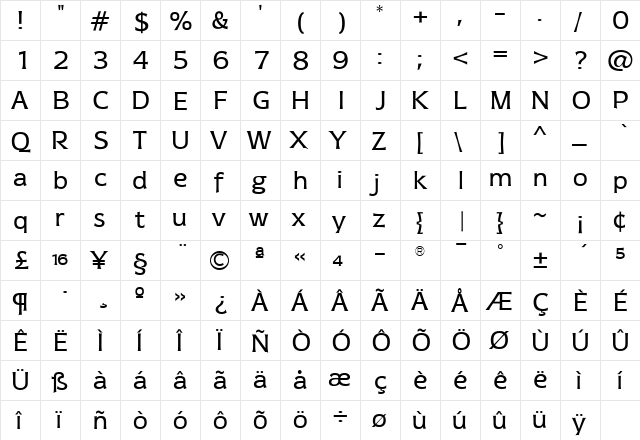
TFDierama Regular
Design Context for TFDierama Typeface
TFDierama is a composed and adaptable typeface that performs quietly and consistently across a wide range of design contexts.